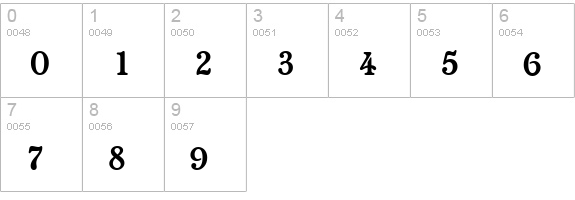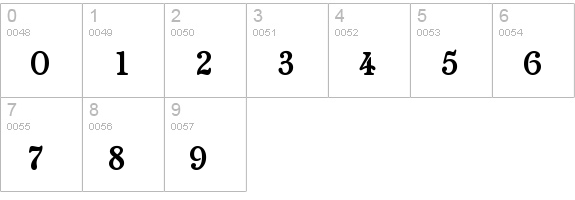
Chatelaine-Regular is the standard, neutral variant in the Chatelaine typeface family \xE2\x80\x94 well suited to general body text, paragraphs, and standard typographic work.
Chatelaine-Regular is a timeless and elegant font that exudes sophistication and class. With its graceful curves and delicate serifs, this font is perfect for adding a touch of refinement to any project. Whether you're designing a wedding invitation, creating a logo, or crafting a stunning poster, Chatelaine-Regular is sure to impress. Best of all, this exquisite font is available for free download at FontsMarket.com. That's right, you can easily access this premium font at no cost, making it a valuable addition to your design toolkit. Don't miss out on the opportunity to elevate your projects with the beauty of Chatelaine-Regular. Download it today and let your creativity shine!